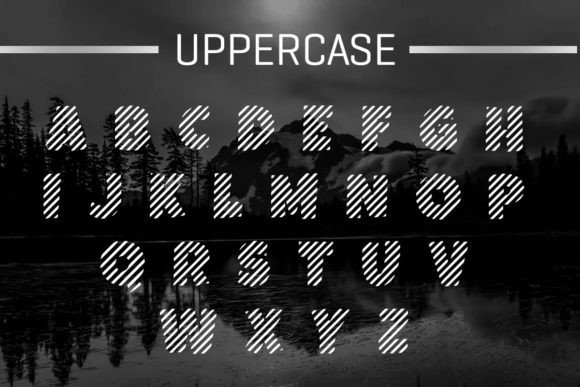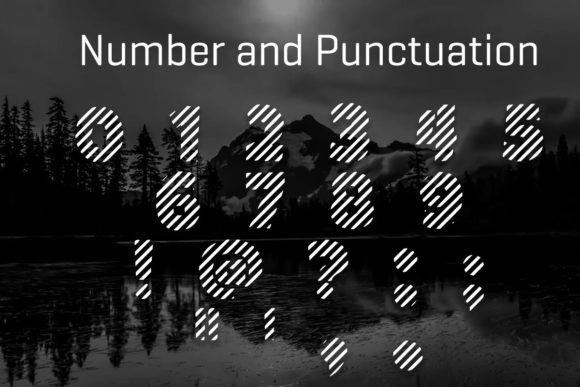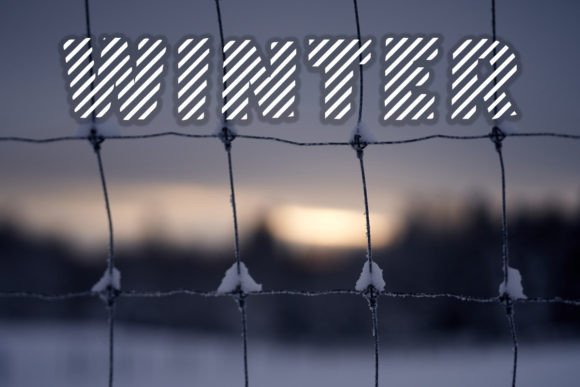
Introduction to Linean Font
Have you ever stared at a blank canvas, trying to bring your creative vision to life, only to feel stuck by the limitations of your font choices? I know I have. That’s why I’m excited to introduce you to the Linean Font, a game-changing display font that’s about to take your creative projects to the next level.
With its unique, modern style and whimsical flair, the Linean Font is the perfect design resource to add some personality to your work. Whether you’re a seasoned designer or just starting out, this high-quality font is sure to elevate your creations and make them stand out from the crowd. Plus, with its versatility, you can use it for everything from logos to social media graphics, and even web design elements with a transparent background.
Key Features of Linean Font
- High-quality design resource ideal for creative projects, offering a unique and stylish aesthetic.
- Transparent background, allowing for seamless integration with various design elements and backgrounds.
- Comes in a range of sizes and resolutions, ensuring versatility and flexibility for different design applications.
- Unique characteristics, such as bold lines and geometric shapes, make it an excellent choice for modern and minimalist designs.
- Perfect for use in digital design projects, including graphics, logos, and typography, due to its crisp and clean appearance.
- Can be easily scaled and manipulated without compromising its high-quality design, making it a valuable design resource.
Honest Review: Linean Font
I recently had the chance to work with the Linean Font, and I must say, it’s a game-changer for any creative project. The font is perfect for designers looking for a high-quality, versatile resource to elevate their designs.
- What works well: ✨ The Linean Font is incredibly customizable, making it easy to adjust to any design style or theme. It’s also a great choice for designs that require a transparent background, which can be a challenge to work with in some fonts.
- What works well: ✨ The font is incredibly well-designed, with a unique and modern aesthetic that’s sure to make any design stand out.
While the Linean Font is an amazing resource, there are a few limitations to be aware of:
- ⚠️ The font may not be suitable for very small text sizes, as the letters can become difficult to read.
- ⚠️ The font may not be as versatile as some other fonts on the market, which may limit its use in certain design projects.
Overall, I’m really impressed with the Linean Font. It’s a high-quality design resource that’s perfect for any creative project. While it may have a few limitations, it’s a great choice for designers looking for a unique and customizable font.
Some common use cases for Linean Font include creating eye-catching headings, designing unique titles, and adding a touch of creativity to your presentations and documents.
Q: Is the Linean Font suitable for large-scale designs?
Yes, the Linean Font is designed to be scalable and suitable for large-scale designs. It’s a high-quality font that will look great in a variety of sizes and resolutions, making it perfect for creative projects that require a professional-looking font.